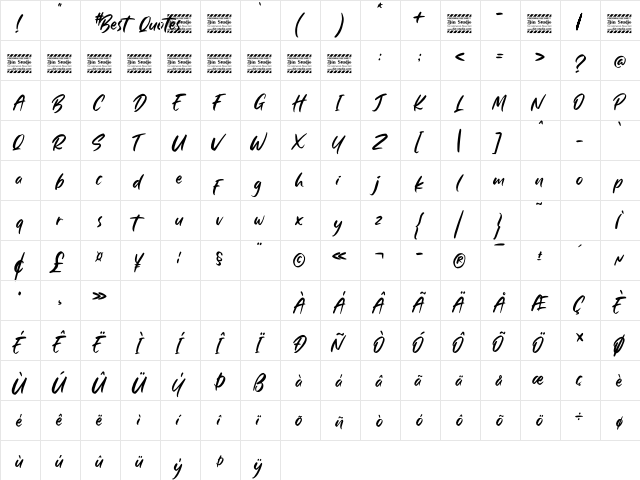
Best Quotes Personal Use Regular
| Designer | Donis Miftahudin |
Design Context for Best Quotes Personal Use Typeface
Best Quotes Personal Use is a composed and adaptable typeface that performs quietly and consistently across a wide range of design contexts.